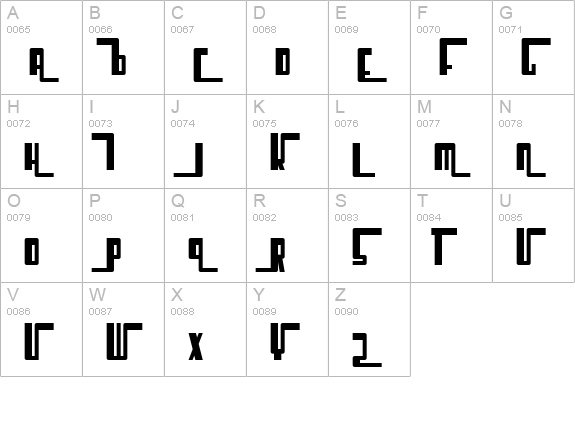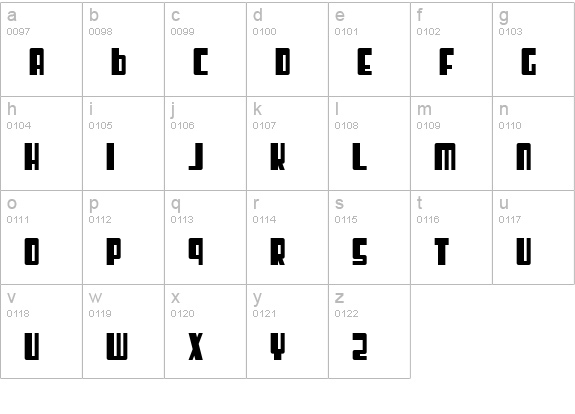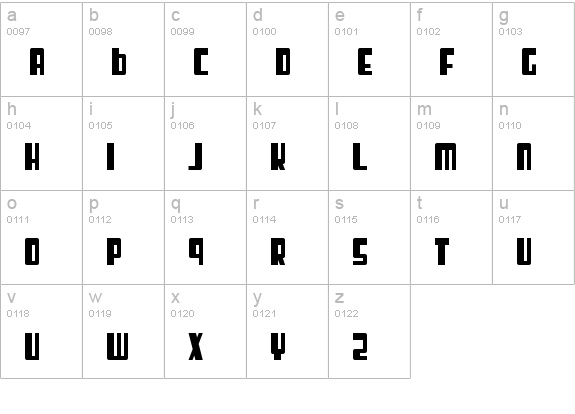
Cosmic Age Bold is a strong, high-contrast variant in the Cosmic typeface family \xE2\x80\x94 well suited to headlines, attention-grabbing titles, and strong calls-to-action.
Cosmic Age Bold font is a futuristic and stylish typeface that exudes a sense of cosmic energy and modernity. Its bold and dynamic design makes it perfect for various design projects that require a strong and impactful typography. The sleek lines and sharp edges of Cosmic Age Bold give a futuristic and space-age vibe, making it ideal for sci-fi themed designs, technology-related projects, and any other creative endeavors that require a touch of avant-garde style. What makes Cosmic Age Bold font even more appealing is that it is available for free download at FontsMarket.com. This means that you can easily access this cutting-edge typeface without any cost, making it a versatile and budget-friendly option for your design needs. With its bold presence and modern aesthetic, Cosmic Age Bold font is sure to make a striking impression in any design project, from posters and flyers to websites and branding materials. Elevate your designs with the futuristic flair of Cosmic Age Bold font, now freely available for download at FontsMarket.com.